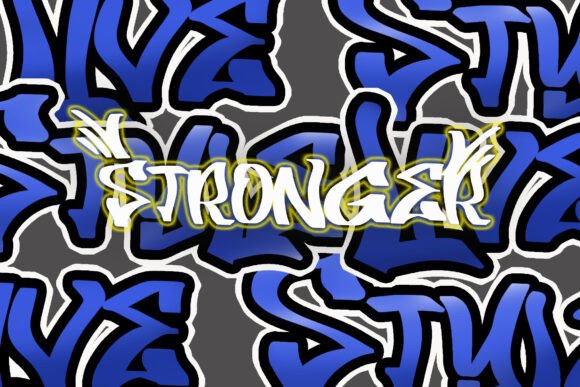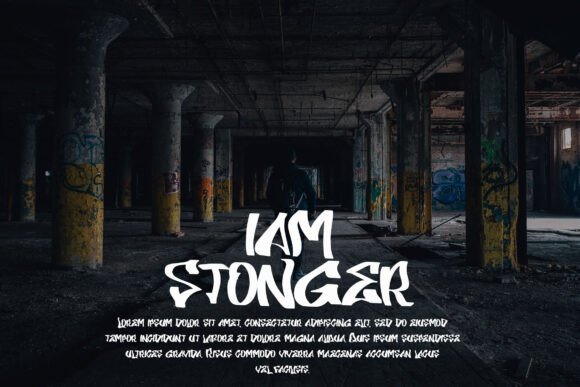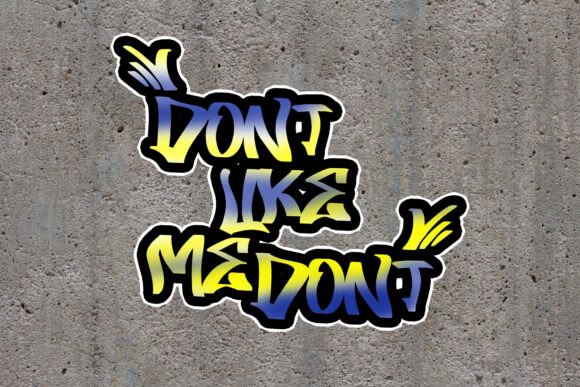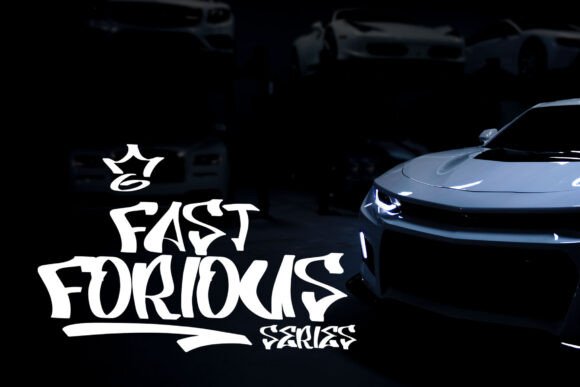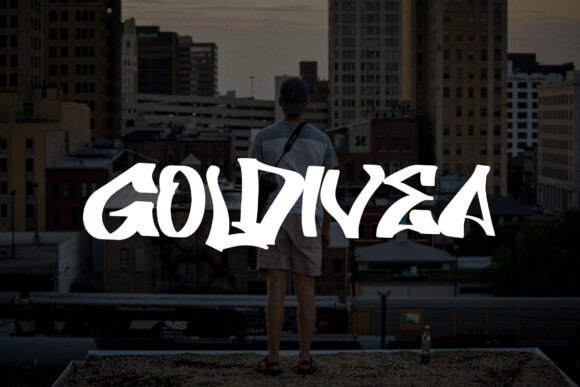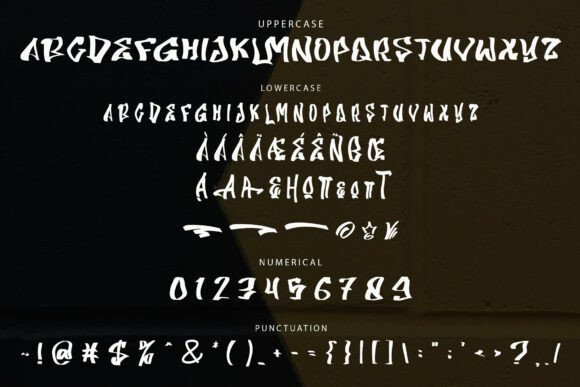
Fantanio Font: Unleash Your Creativity with a Bold Graffiti Style
In the world of design, fonts play a crucial role in conveying the message and aesthetic of a project. For those looking to add a fresh, urban edge to their designs, the Fantanio Font is an excellent choice. This bold graffiti font, with its natural hand brush style, is designed to bring raw, expressive energy to any project. In this article, we’ll dive into the features and benefits of the Fantanio Font and explore how it can elevate your designs.
What is Fantanio Font?
Fantanio is a bold graffiti font that boasts a unique, hand-crafted style. Its natural hand brush texture gives it an organic, street-art feel that’s perfect for designs that require a creative and impactful look. The font’s character shapes are carefully crafted to bring a sense of raw energy and expression, making it an ideal choice for designers and crafters looking to add an urban edge to their work.
Key Features of Fantanio Font
- Bold and Graffiti Style: Fantanio Font is a bold, graffiti-style font that’s designed to make a statement. Its thick lines and sharp edges give it a rugged, urban feel that’s perfect for designs that require a strong visual impact.
- Natural Hand Brush Style: The font’s natural hand brush style gives it a unique, organic texture that’s reminiscent of street art. This feature makes Fantanio Font perfect for designs that require a human touch.
- Unique Character Shapes: The font’s character shapes are carefully crafted to bring a sense of raw energy and expression. Each letter is designed to be visually striking, making Fantanio Font perfect for logos, posters, and other designs that require a bold look.
- Versatile: Fantanio Font is a versatile font that can be used for a wide range of projects, from logos and branding to streetwear, posters, and more.
Benefits of Using Fantanio Font
So, why choose Fantanio Font for your designs? Here are just a few benefits of using this bold graffiti font:
- Adds an Urban Edge: Fantanio Font is perfect for designers and crafters looking to add an urban edge to their designs. Its bold, graffiti style is sure to make your designs stand out.
- Expressive and Creative: The font’s unique character shapes and natural hand brush style make it perfect for designs that require a creative and expressive look.
- Perfect for Logos and Branding: Fantanio Font is an excellent choice for logos and branding projects. Its bold, eye-catching style is sure to make your brand stand out.
In conclusion, Fantanio Font is a bold graffiti font that’s perfect for designers and crafters looking to add a fresh, urban edge to their designs. Its unique character shapes, natural hand brush style, and bold style make it an excellent choice for logos, streetwear, posters, and any project needing a creative and impactful look. With its ease of use and versatility, Fantanio Font is a great addition to any designer’s toolkit.